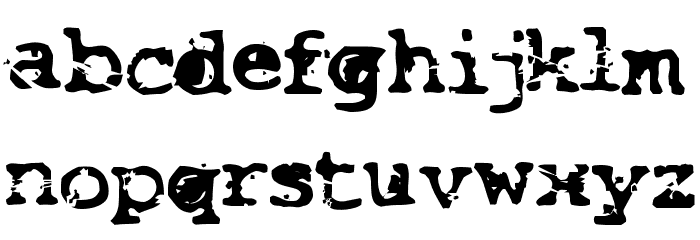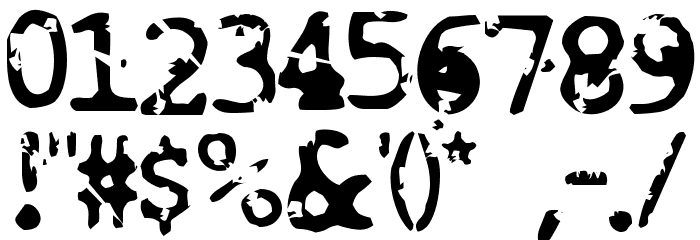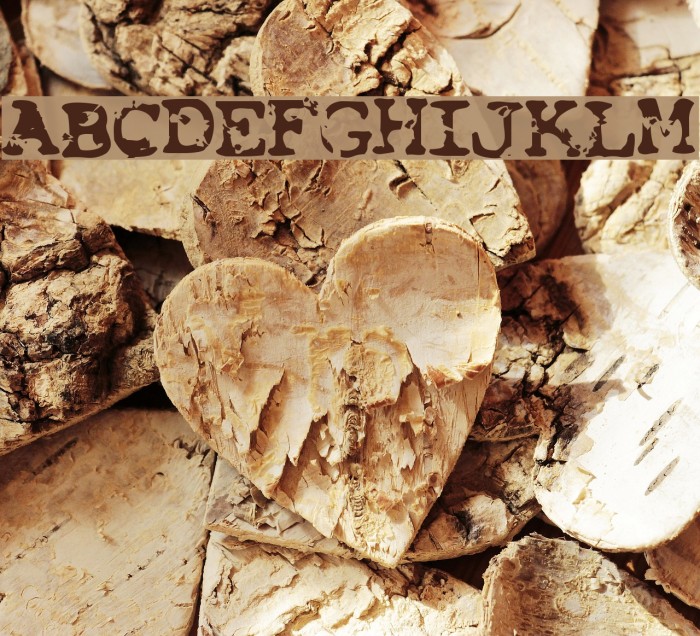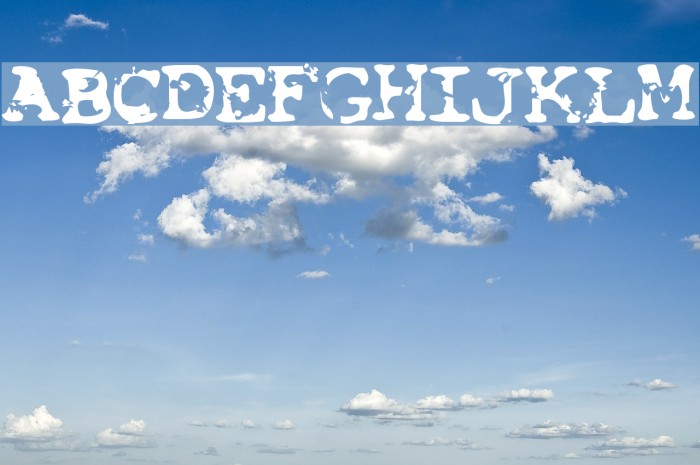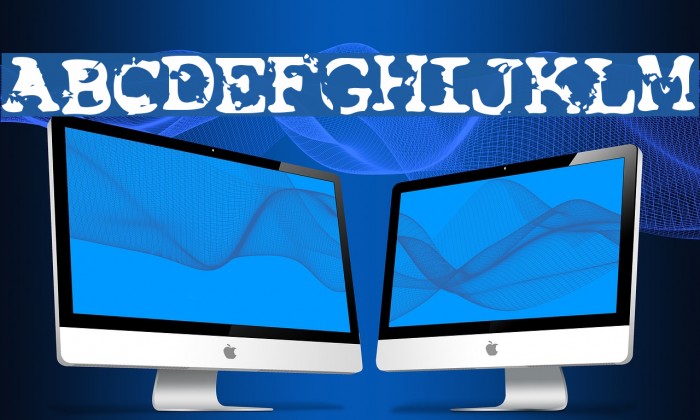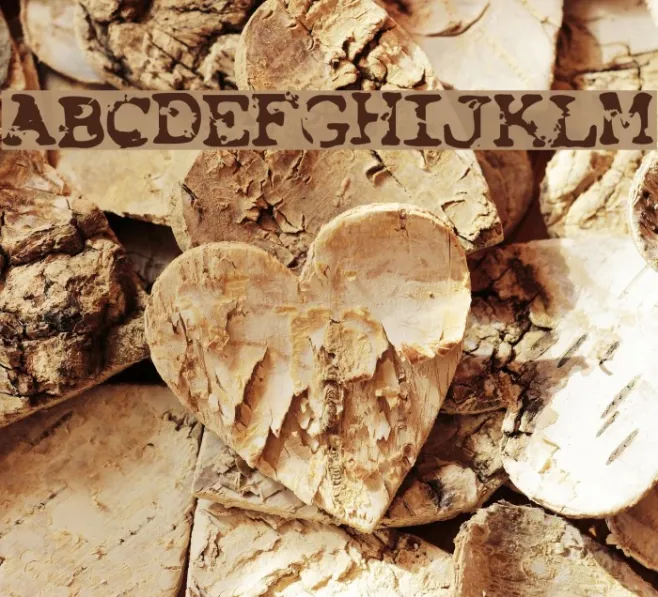
Smash Font
This font features a distressed, grunge style with a bold and impactful appearance. The letters are heavily textured, giving them a worn and rugged look, reminiscent of eroded or splattered surfaces. The uppercase and lowercase characters maintain a consistent roughness, while the numbers and special characters follow the same aesthetic, ensuring uniformity across all glyphs. This font is ideal for projects that require a strong, edgy, and unconventional look, making it perfect for designs that aim to stand out with a rebellious or urban vibe.
A bold, distressed font with a grunge, textured style.
- Proposed Projects: Ideal for album covers, posters, streetwear branding, and edgy graphic designs.
- Overall Style: Grunge, Urban, Edgy